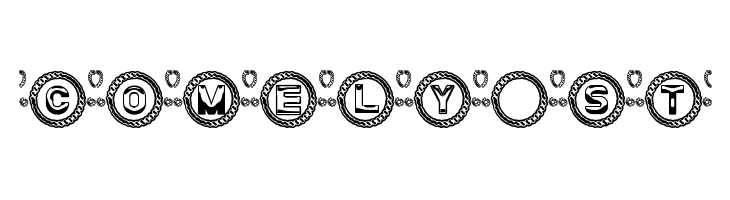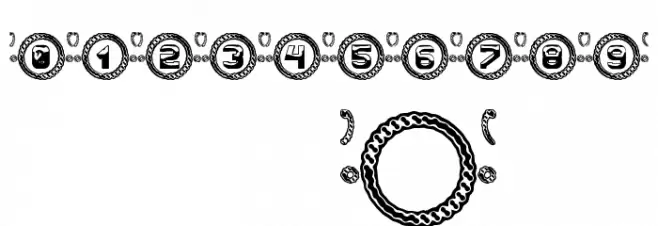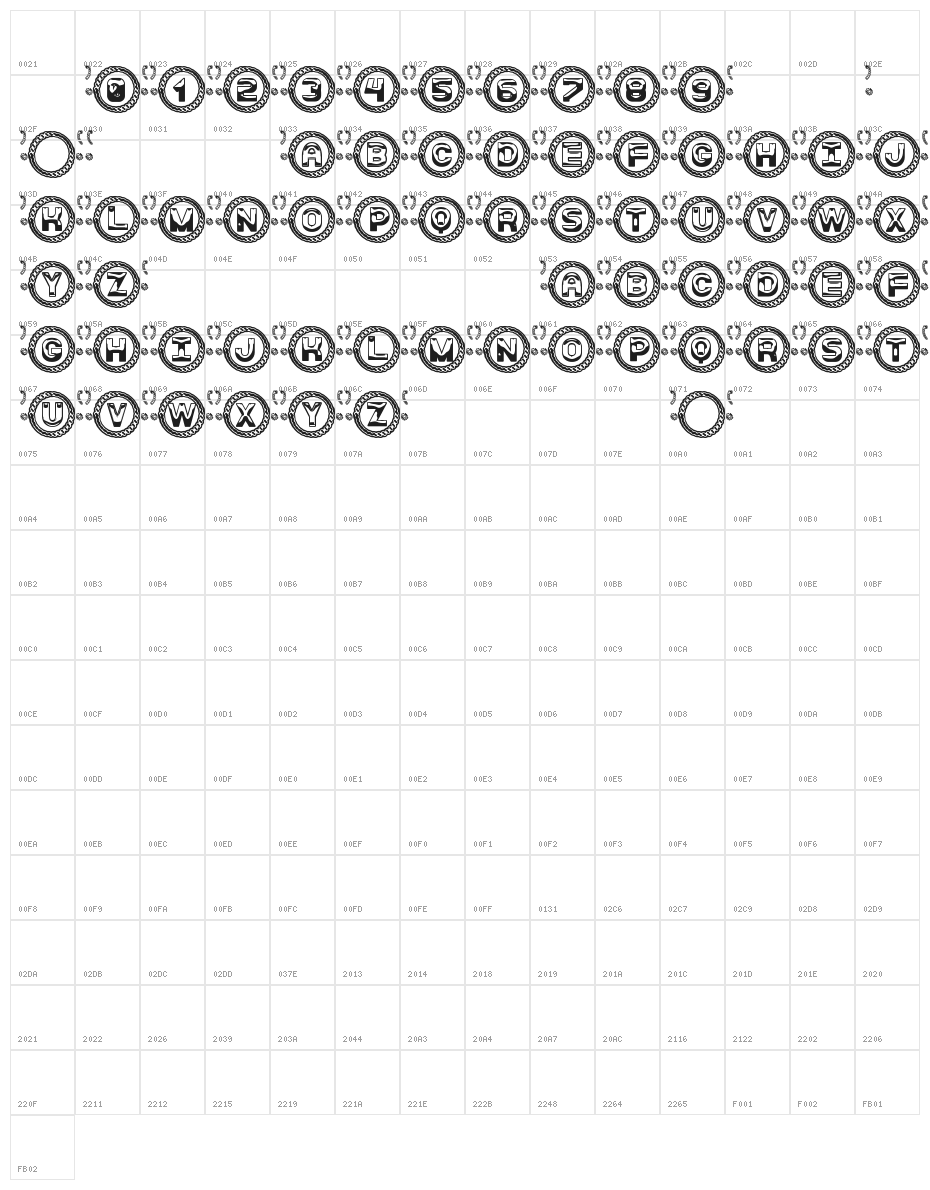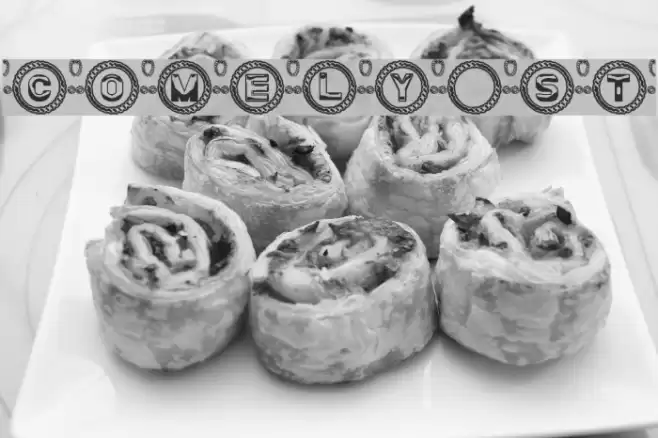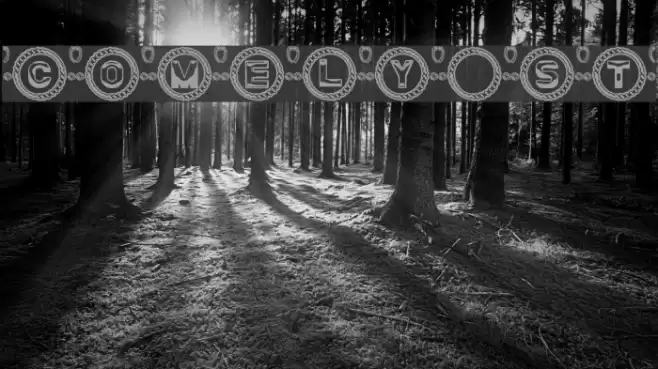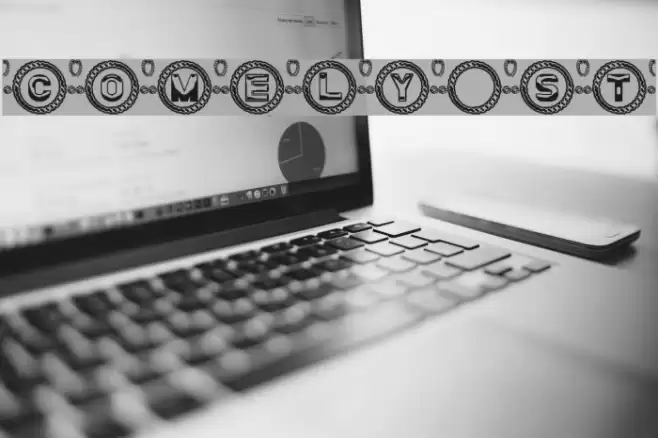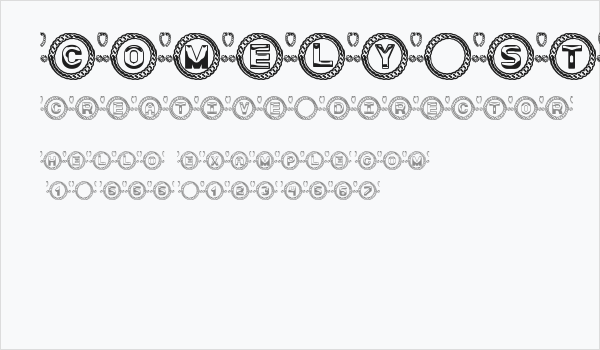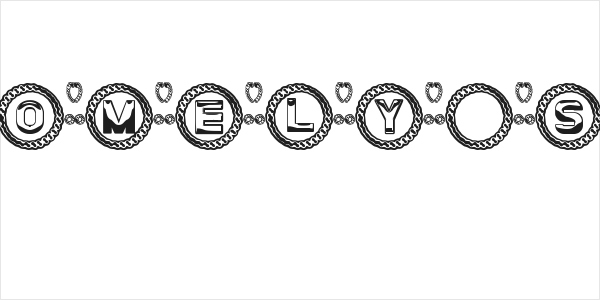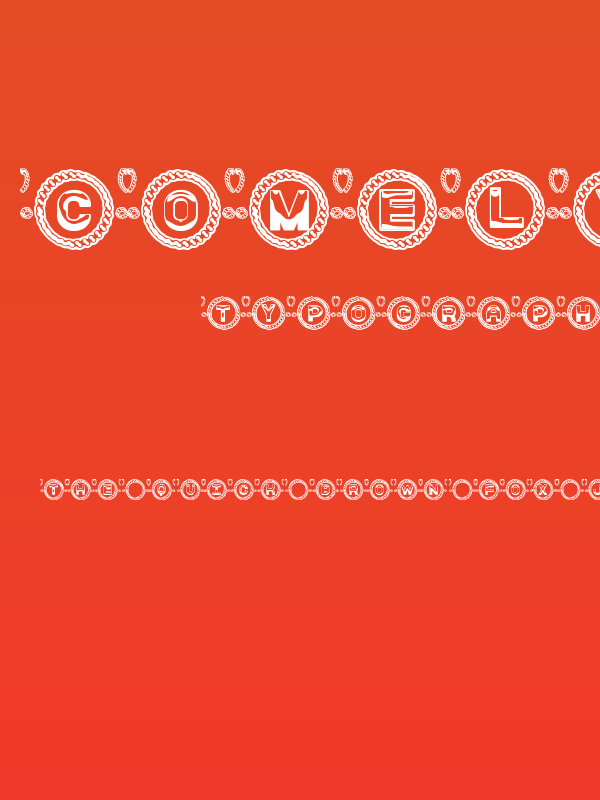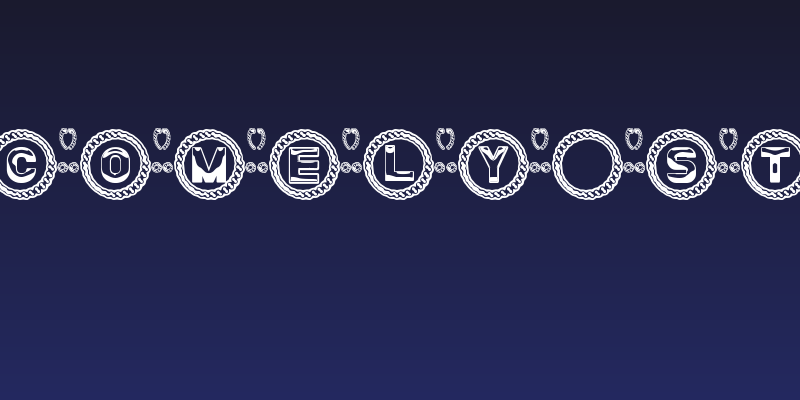
Comely St Font
Comely St Description
This font features a unique decorative style with each character enclosed within a circular emblem, reminiscent of vintage coin designs. The letters are bold and uppercase, with a distinct geometric pattern that adds an ornamental touch. The numbers and special characters follow the same design, maintaining consistency across the font. The intricate detailing within each circle gives it a luxurious and classic feel, making it stand out for specific design needs. The overall appearance is both striking and elegant, suitable for projects that require a touch of sophistication and creativity.
| Use Case | Logos, Headlines, Decorative elements |
| Proposed Projects | Ideal for branding, packaging, invitations, and decorative posters. |